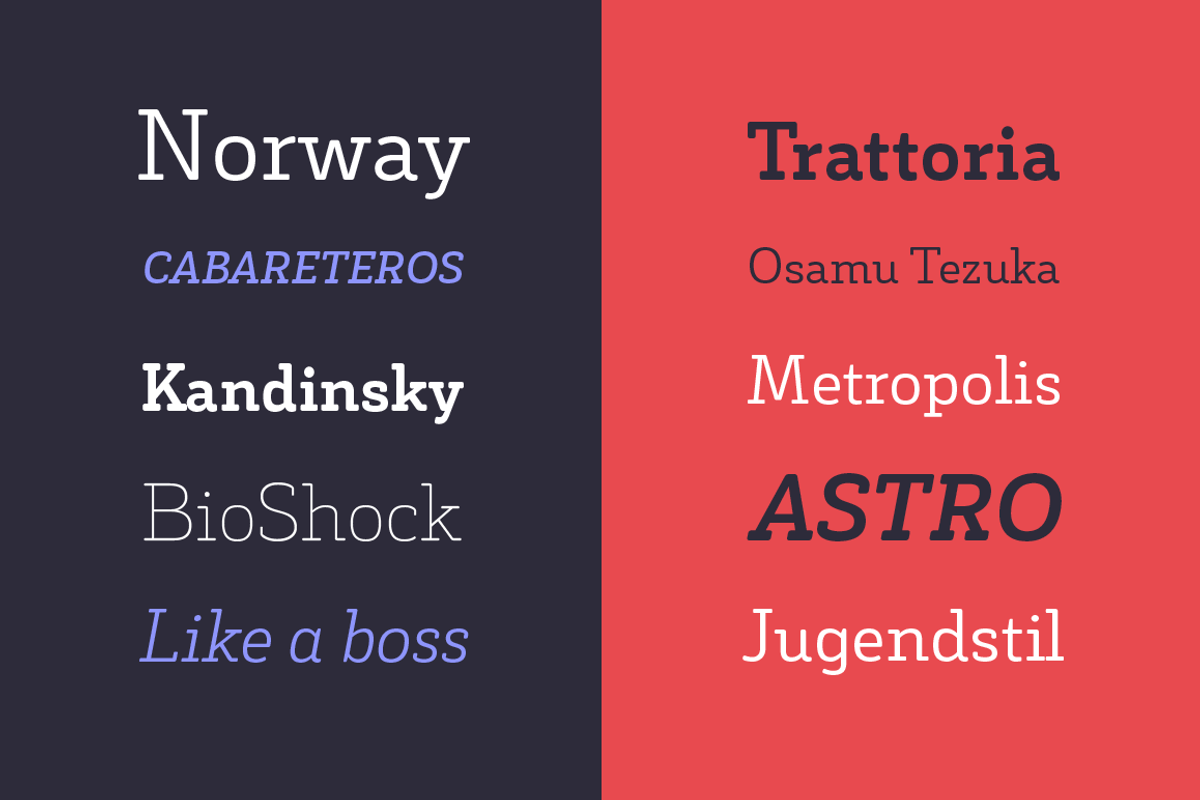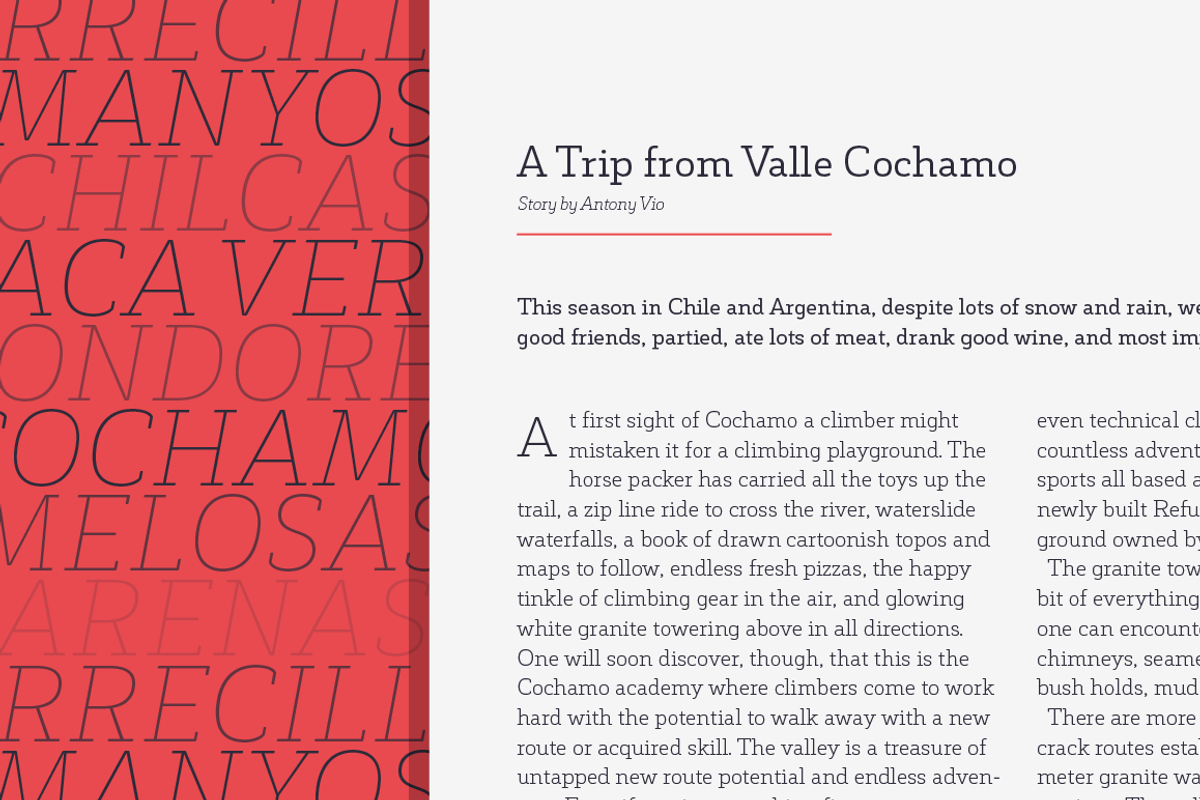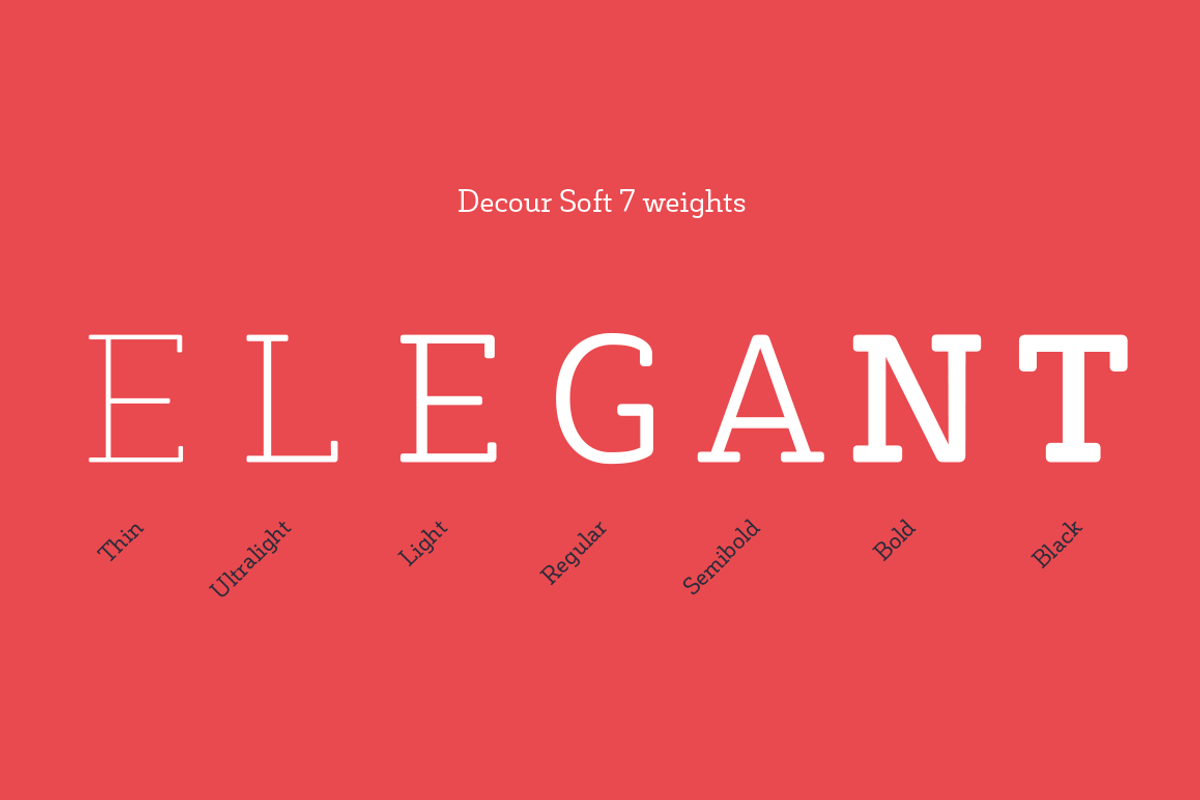
Decour Soft
Decour Soft is the rounded-edged version of Decour. It is a slab serif humanist low contrast typeface. The overall design also features strong curves, making it a very friendly face. The font retains the original elegant features of Decour—based on Art Deco design—such as high contrast between upper and lower case characters.
Decour Soft is a suitable font for logotypes and packaging. Its design also allows it to be used with certain elegance in book titles and magazines subheadings.